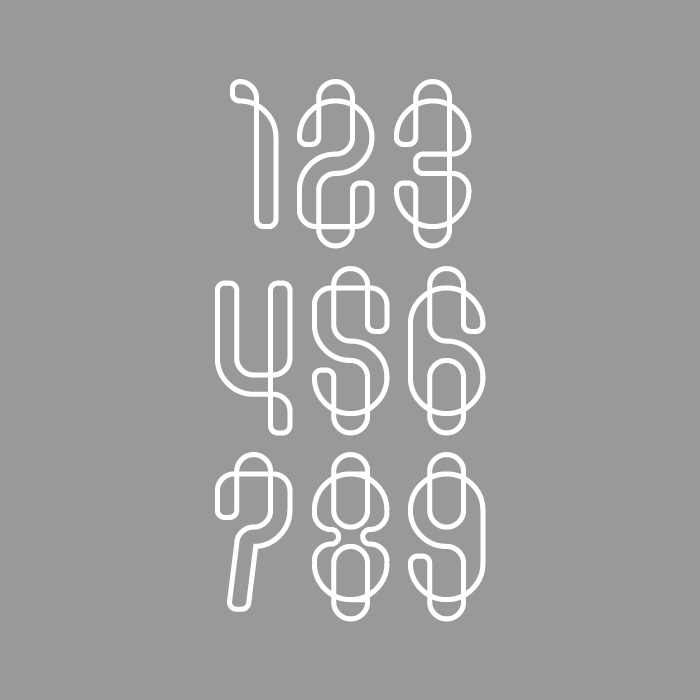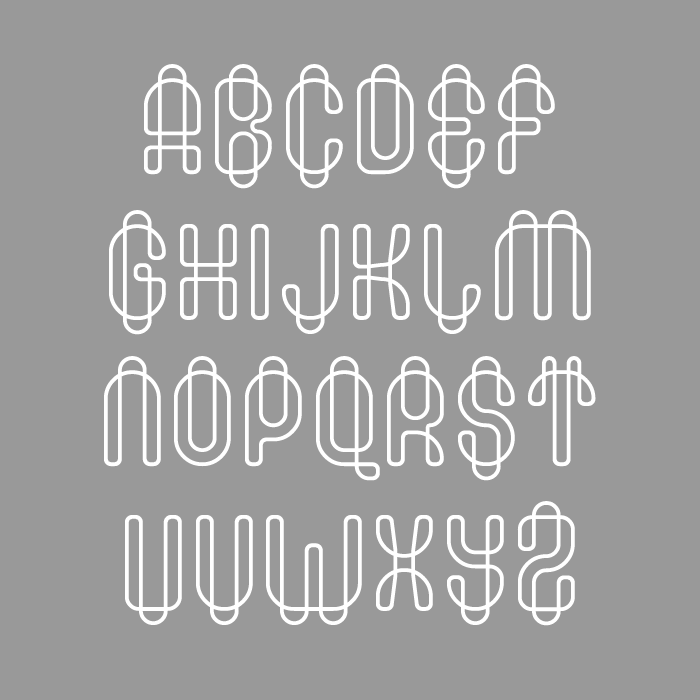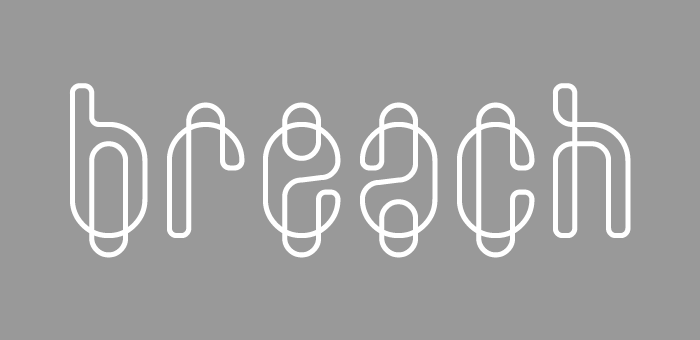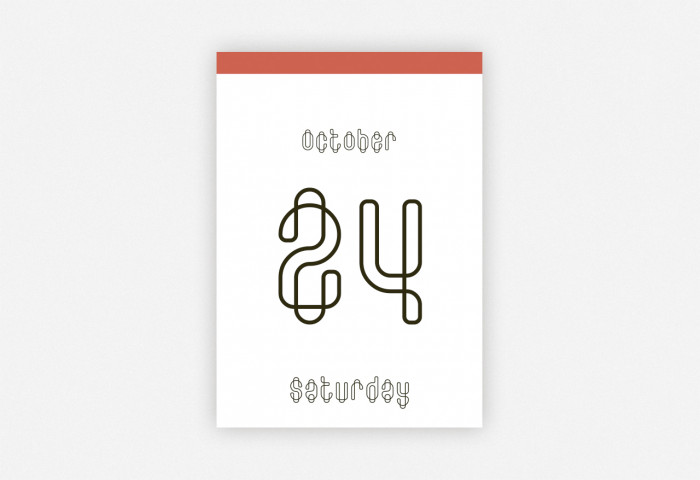
reminds me of rubber bands...
Ů and ů missing the rings...
Beautiful smooth curves, hard to believe this is possible in FontStruct!
Nice to see your elegant and careful work again, compañero! I was a lot of time out of FS, apologies for the delay. And now, what a wonderful and well crafted idea! Sure winner, IMHO! My 10 2U. BTW, I was thinking in some similar last year (I add you a sample of my notebook), another example of our convergent thinking... But yours is great!
An instant favorite. Such a nice idea with fontstruct-perfect execution.
Your lowercase d is broken in the downloaded font...
@Se7enty: Oh I had similar glitches in my downloaded fonts before as well. Especially missing bricks in places where a composite brick shouldve been. I fixed it by stacking the composite brick.
lowercase ü are missing umlat...
@Se7enty-Se7en: thanks for spotting those. I've added the diacritics and rebuild d. Hope this works for you. Yes, it would be interesting to try and recreate these glyphs with rubber bands, or even in metal wire...
@V. Sarela (Yautja): thanks! This was done in 2x2 filters and using a number of 2x2, 4x4 1x4 and 2x4 composites to achieve 1/8 brick-width stroke-thickness. Flipping, rotating, stacking and nudging helped to manoeuvre all elements into position.
@elmoyenique: good to see you and your inspiring work here again and thanks for sharing your drawing and ideas. I don't think my preliminary sketch was that neat...
@Sed4tives: thanks for the suggestion, I hope the download problem is now solved. Strangely enough, my own download was ok (see sample).
An unconventional yet beautiful idea. I love the combination of diagonals and curves on letters like K and X. The loopiness of the Q also intrigues me. Well done and good luck!
breach simply and succinctly addresses the concept of 'counter' in such a creatively clever way as to literally push the boundaries. and it seems to have been pulled off with  effortless execution. Bravo!
Congrats, dear compañero! I never doubted that breach was a great font, and the rest of the fontstructors have thought the same!
@four: typophilus50 left a comment on one of my fonts a long time ago. This font reminded me of that: "Remarkable how the original, when expressed, seems so inevitable!"
This is cool!
This font good for chemical :)
Wow
lovely